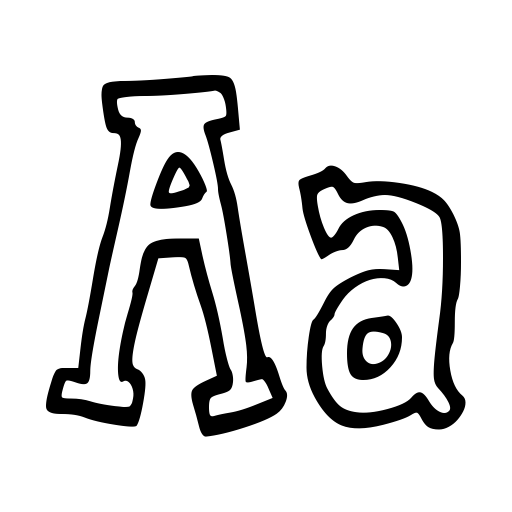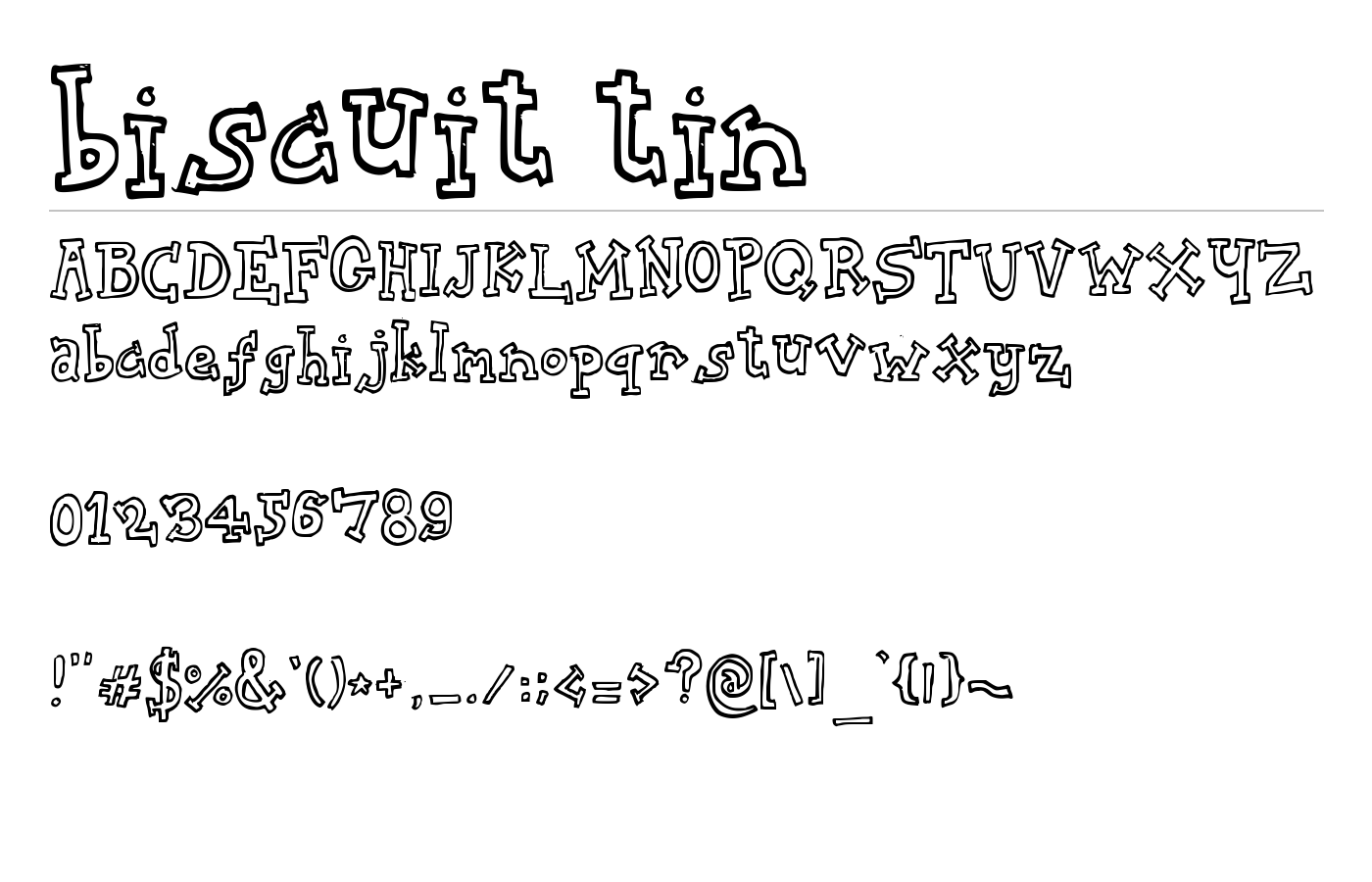
Biscuit Tin is a playful, hand-drawn serif font with quirky, uneven letterforms and a casual, whimsical feel. Its irregular strokes and slightly condensed shapes give it a charming, informal personality, making it ideal for fun projects, children's books, or creative branding that seeks a lighthearted and approachable tone. This font works best in headlines, logos, and designs where a unique, friendly style is needed to capture attention.
biscuit tin Font